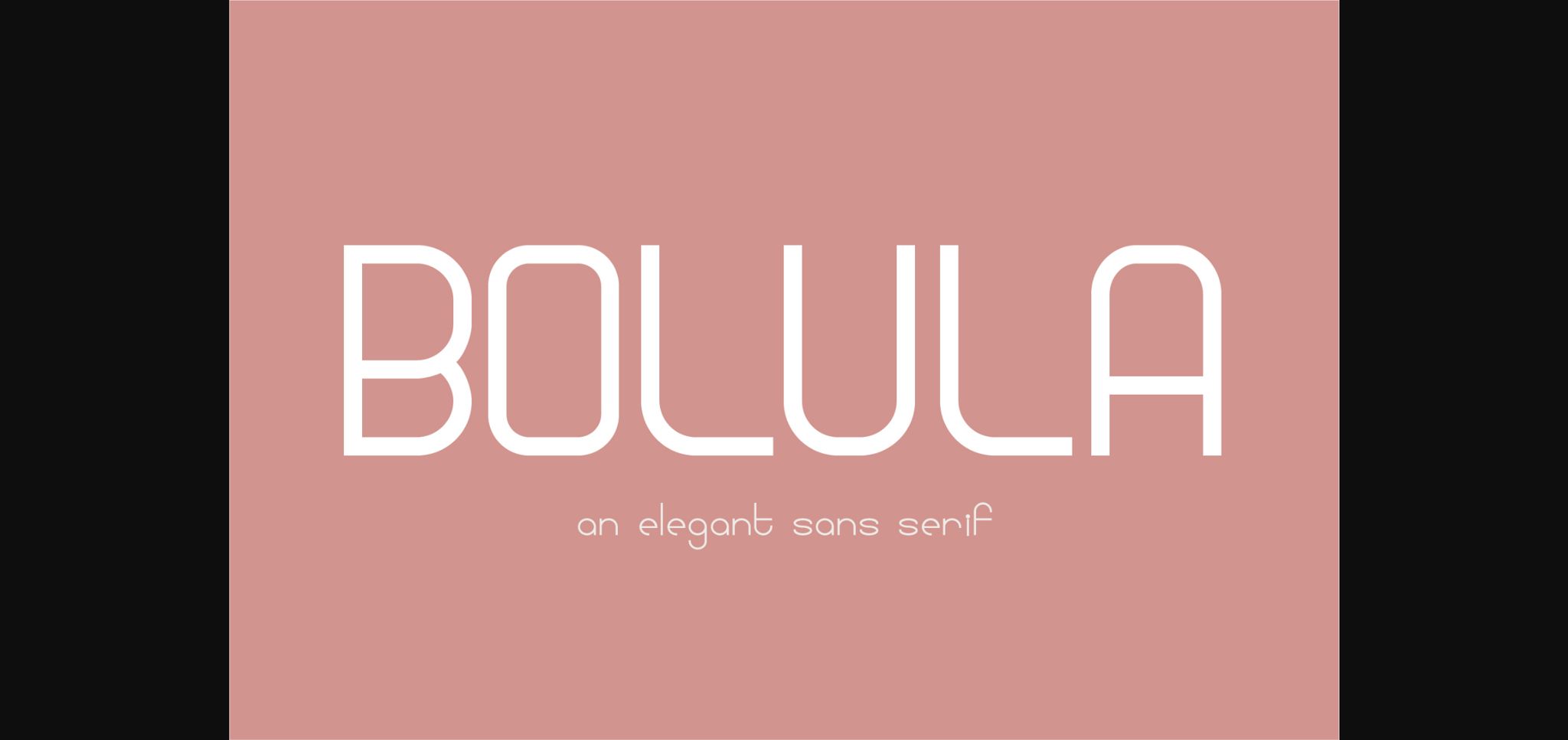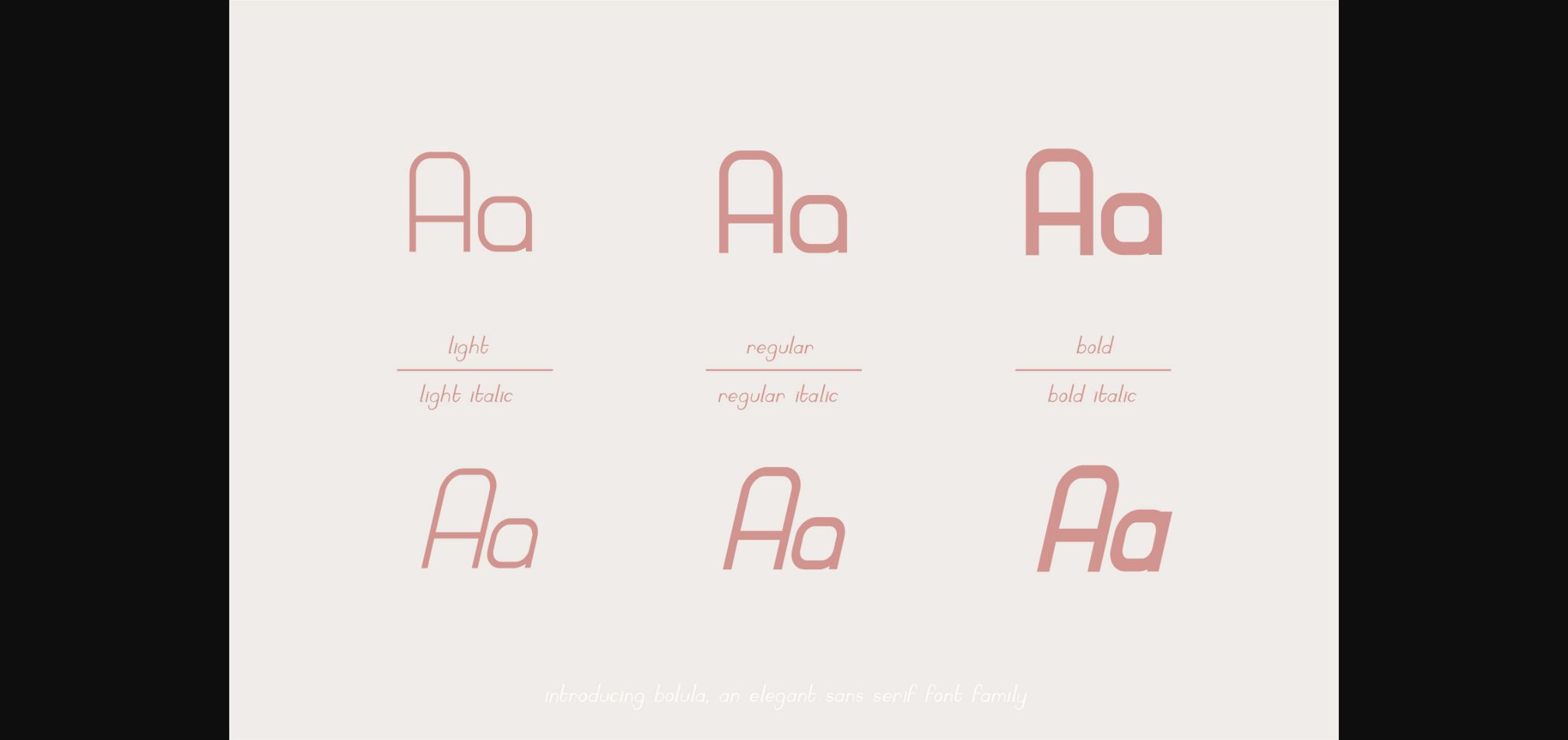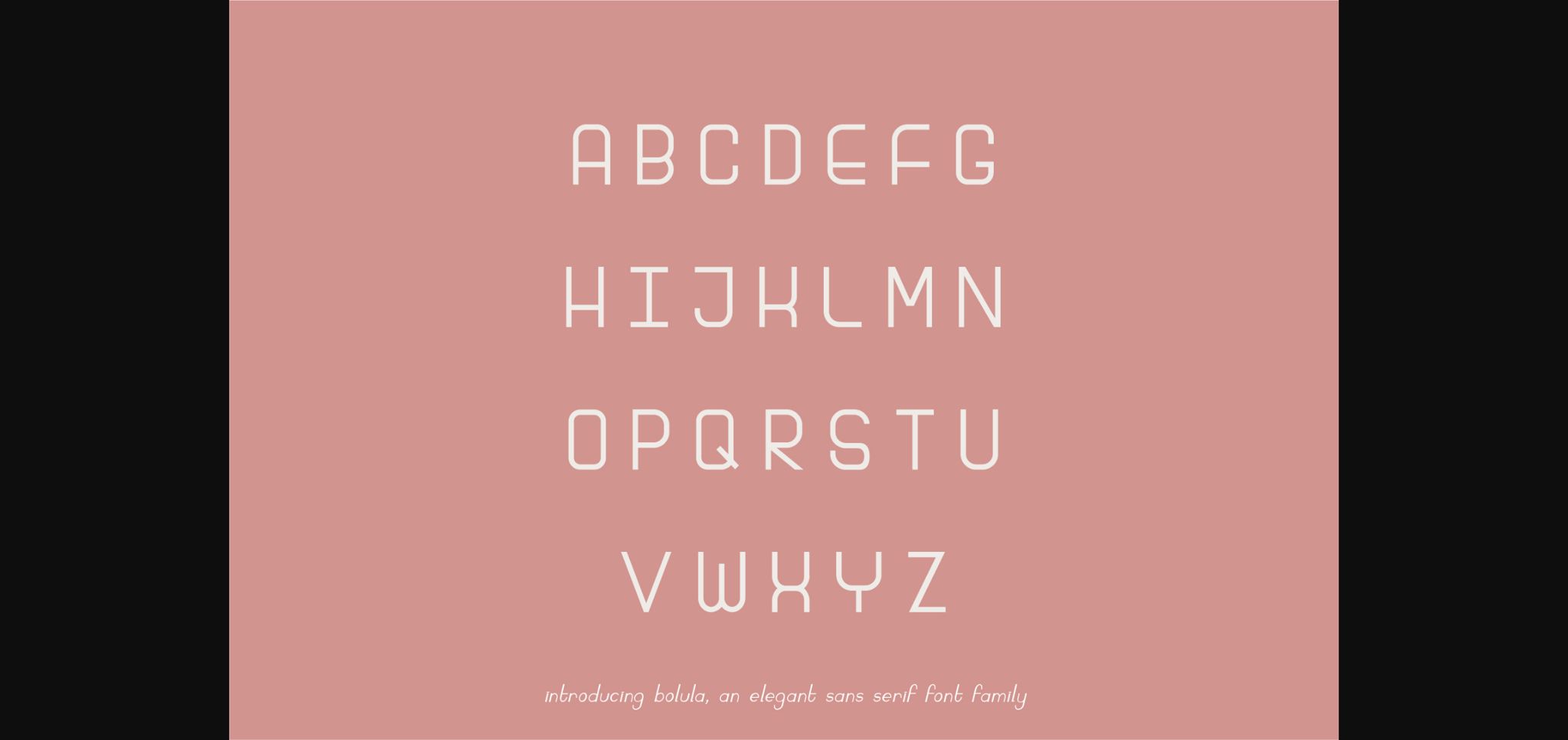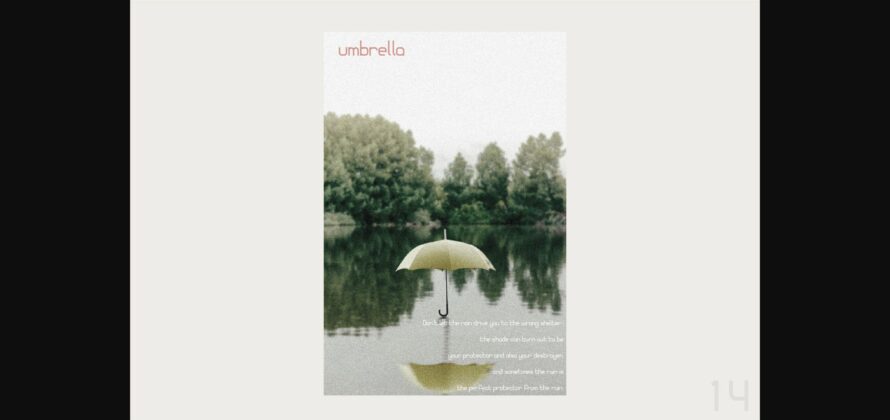
Bolula Font
About Bolula Font
Bolula is an elegant, simple and light sans serif font that’s perfect for turning any design project into a sophisticated work.